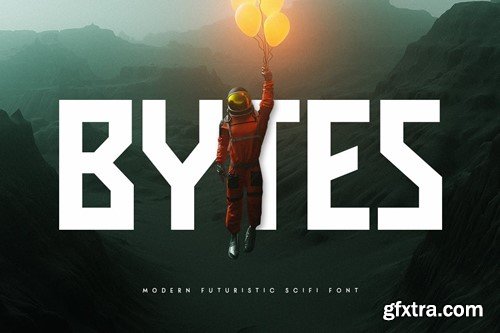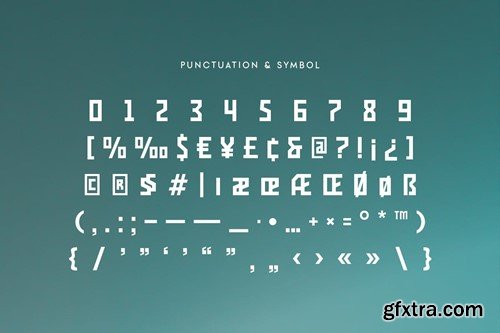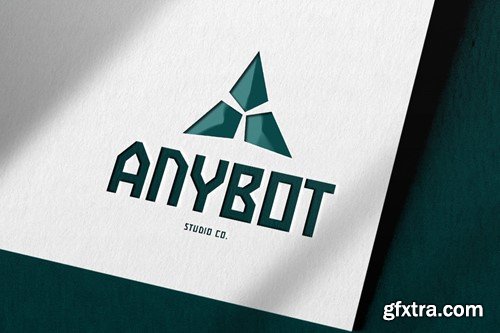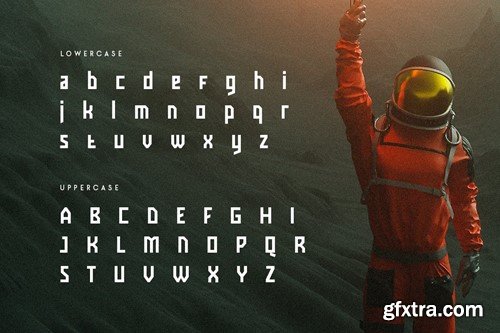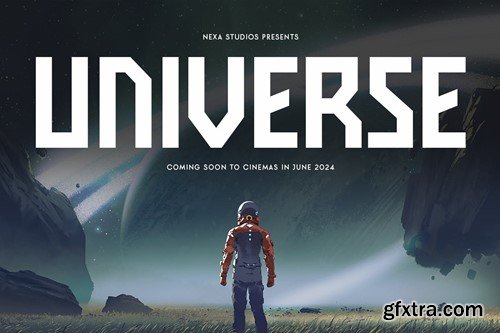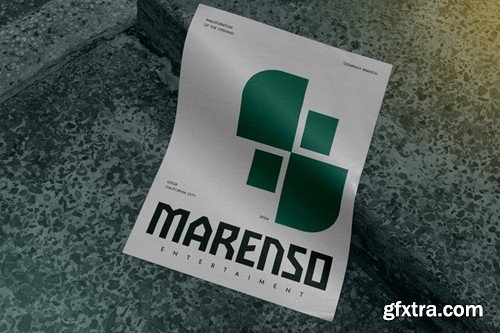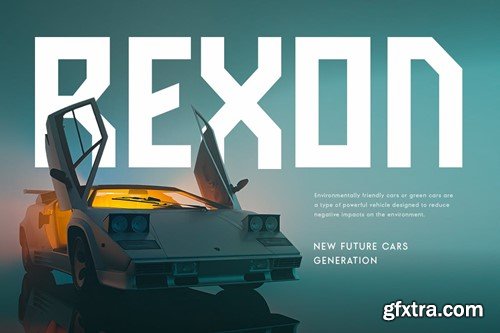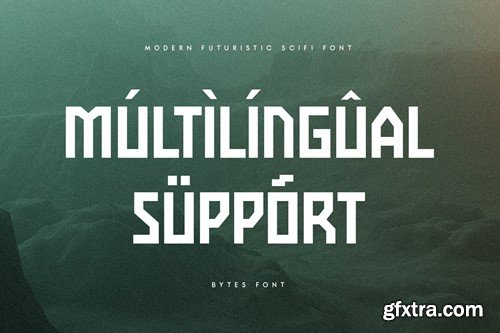
BYTES is a Futuristic Sci-fi Font created specifically for Sci-fi, Modern, and Technology designs. Its unique, futuristic styles make your typography stand out, ideal for Cryptocurrency, technology, film, and Sci-fi themes. BYTES's modern aesthetics bring a tech-inspired feel to any project, perfect for expressing your main ideas. BYTES Futuristic Sci-fi Font features: Enhance your designs with BYTES's cutting-edge style and make your projects shine. Enjoy the futuristic touch BYTES brings to your work!